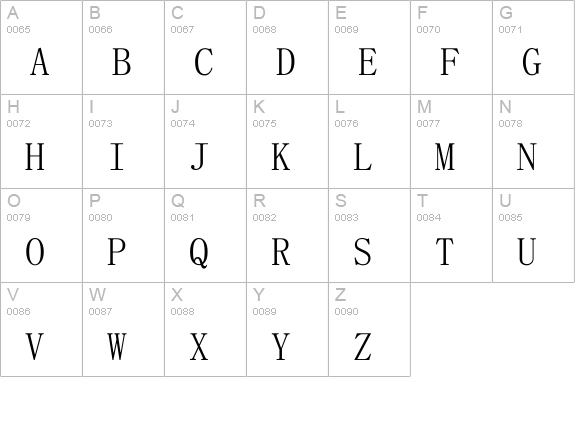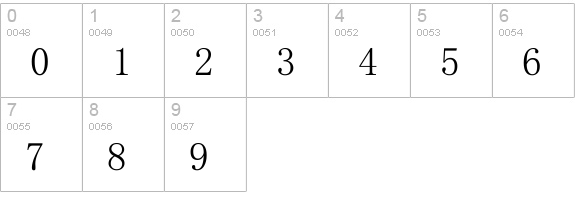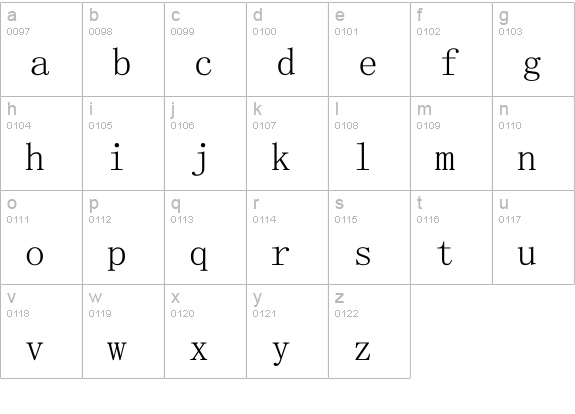
FangSong Font Details
FangSong font is a beautifully crafted typeface that exudes elegance and sophistication. With its delicate strokes and graceful curves, this font is perfect for adding a touch of refinement to any design project. Whether you're creating invitations, branding materials, or editorial layouts, FangSong font is sure to make a lasting impression. One of the best things about FangSong font is that it is completely free to download. You can easily access this stunning typeface at FontsMarket.com and enhance your creative projects with its timeless charm. Don't miss out on the opportunity to elevate your designs with the exquisite beauty of FangSong font. Download it now and let your creativity shine!